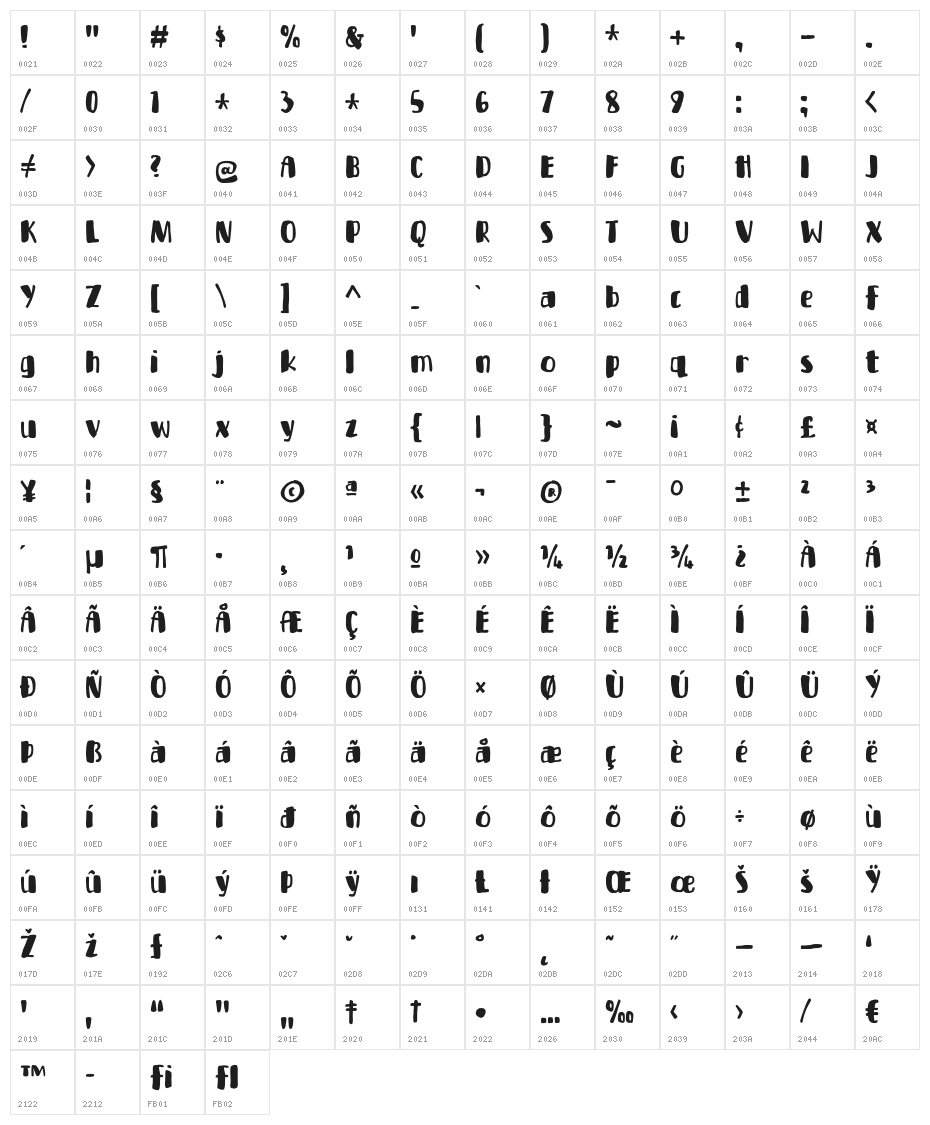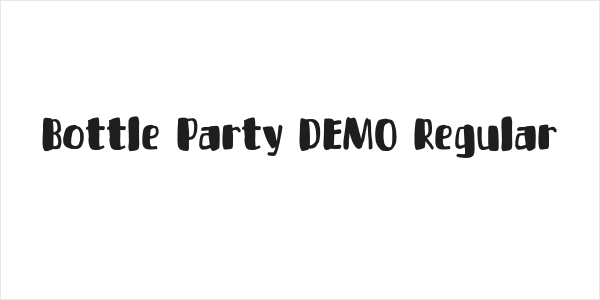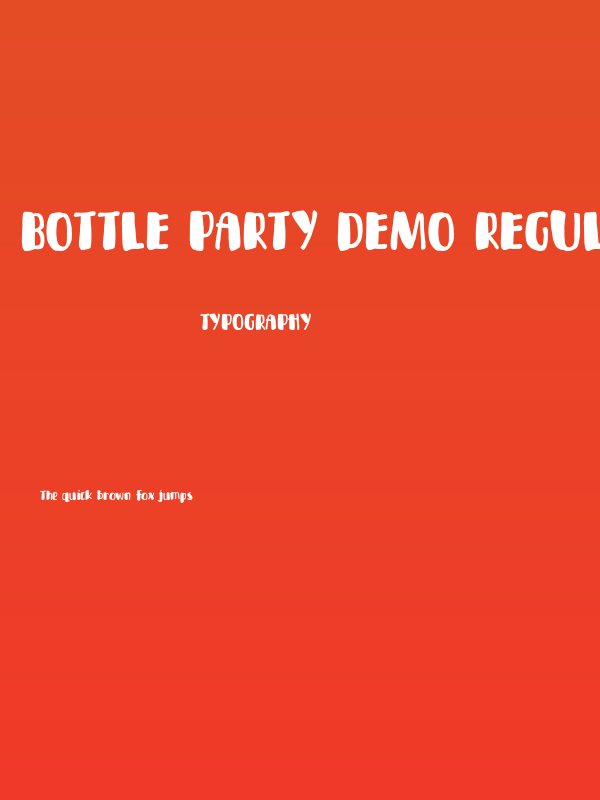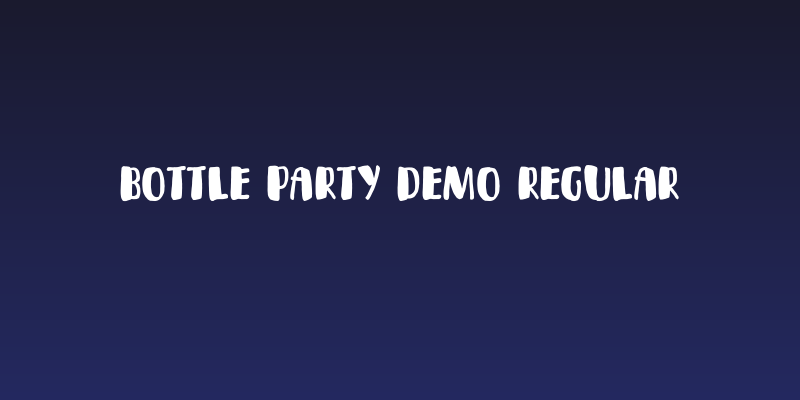
Bottle Party DEMO Regular Font
Bottle Party DEMO Regular Description
This font features a playful and bold design, characterized by its irregular and organic shapes. The letters have a hand-drawn appearance, with varying stroke widths that give it a lively and dynamic feel. The uppercase and lowercase letters maintain a consistent style, with rounded edges and a slightly whimsical touch. The numbers and special characters follow the same playful aesthetic, making the font suitable for creative and informal projects. Its unique style stands out, making it ideal for attention-grabbing designs.
| Overall Style | Playful, Creative |
| Proposed Projects | Ideal for children's books, party invitations, playful branding, and creative posters. |